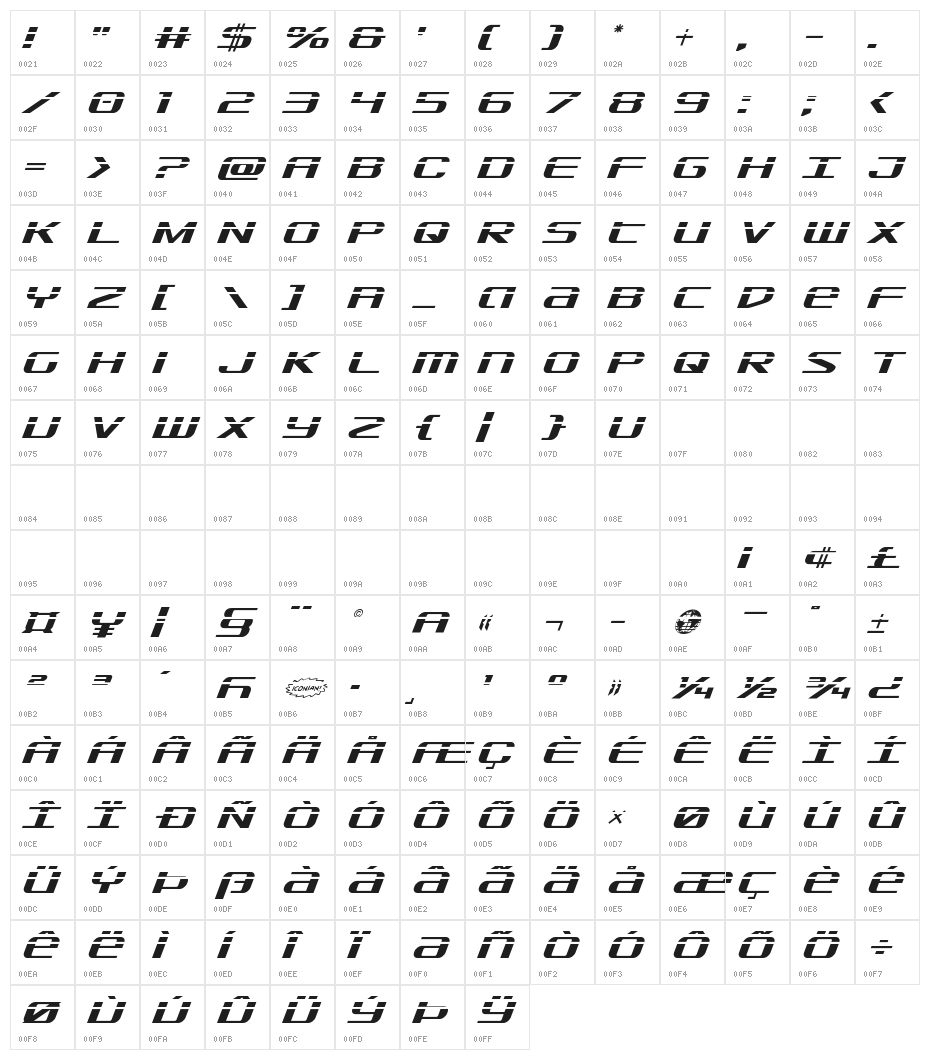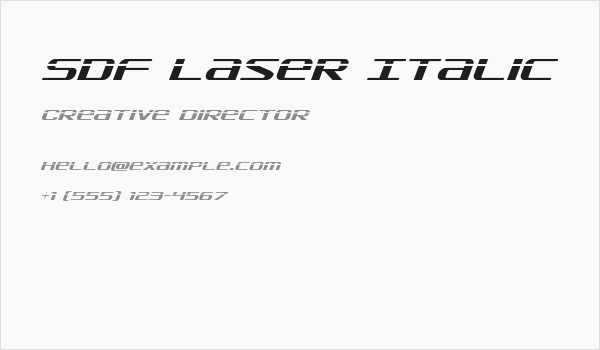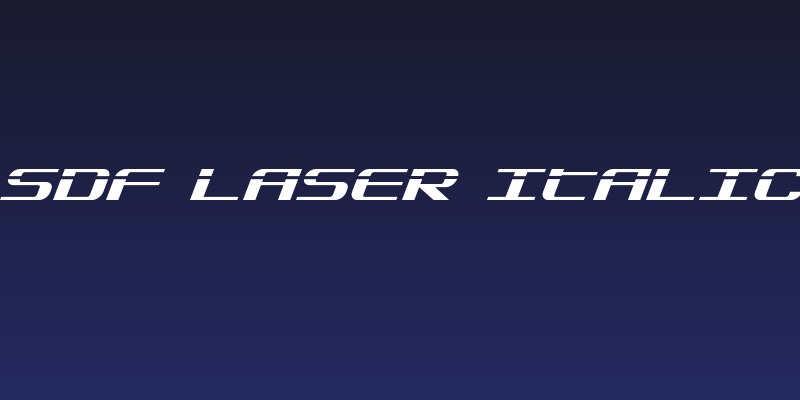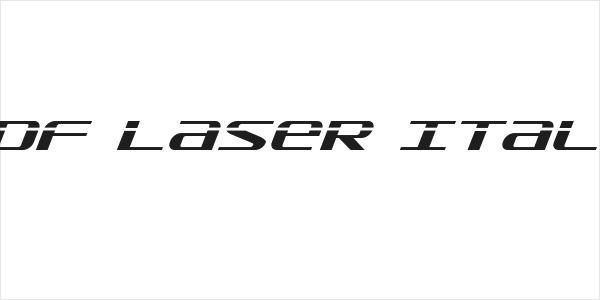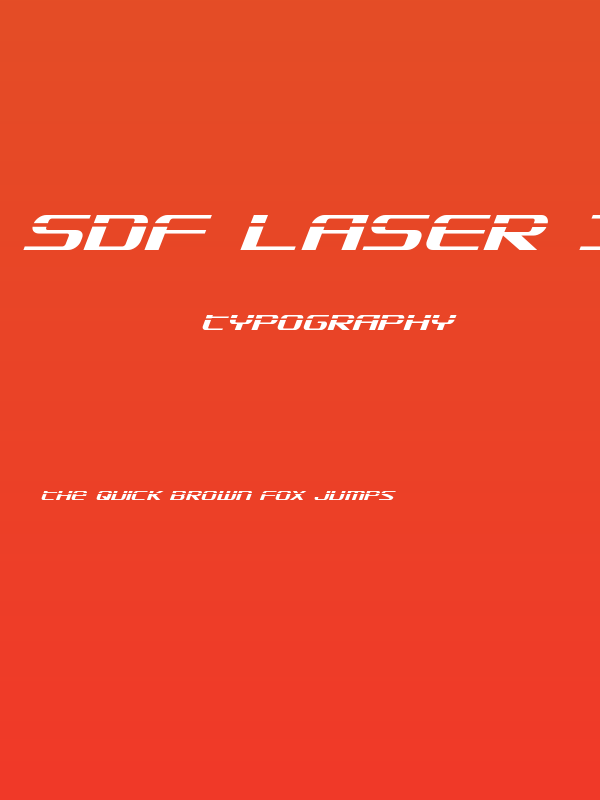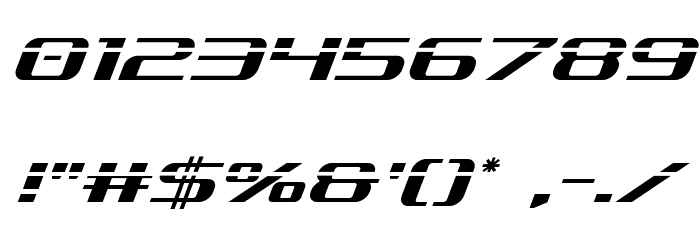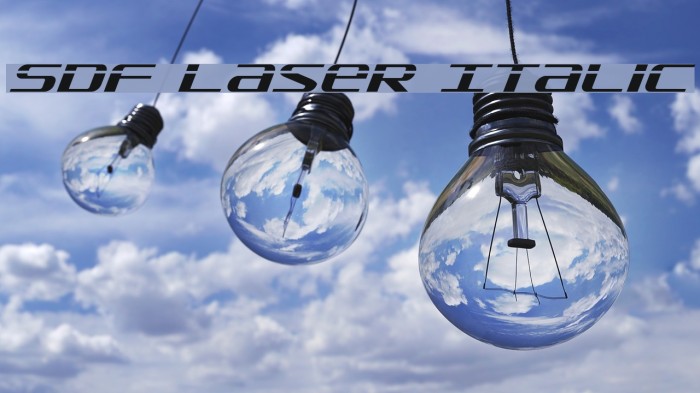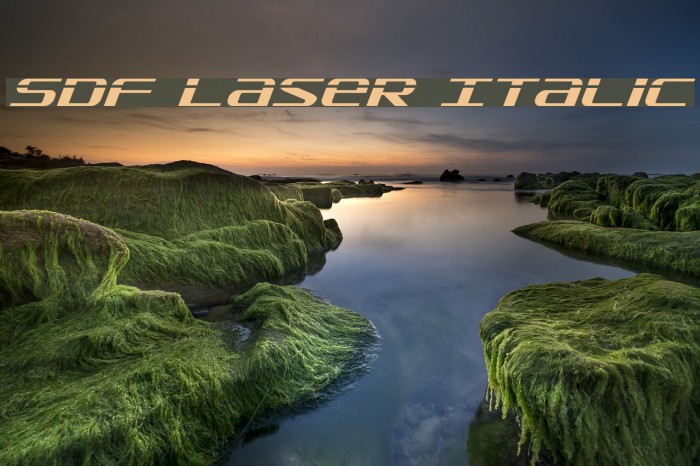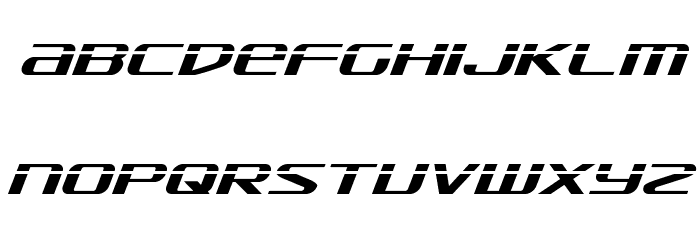
SDF Laser Italic Font
This font features a futuristic and dynamic design with a strong italic slant, giving it a sense of motion and speed. The characters are bold and angular, with sharp edges and a sleek, streamlined appearance. The uppercase and lowercase letters maintain a consistent style, emphasizing geometric shapes and clean lines. Numbers and special characters are designed to match the overall aesthetic, making them suitable for high-tech or modern themes. The font's unique style makes it stand out, ideal for projects that require a bold and contemporary look.
| Proposed Projects | Ideal for sci-fi themed designs, tech branding, video game titles, and futuristic posters. |